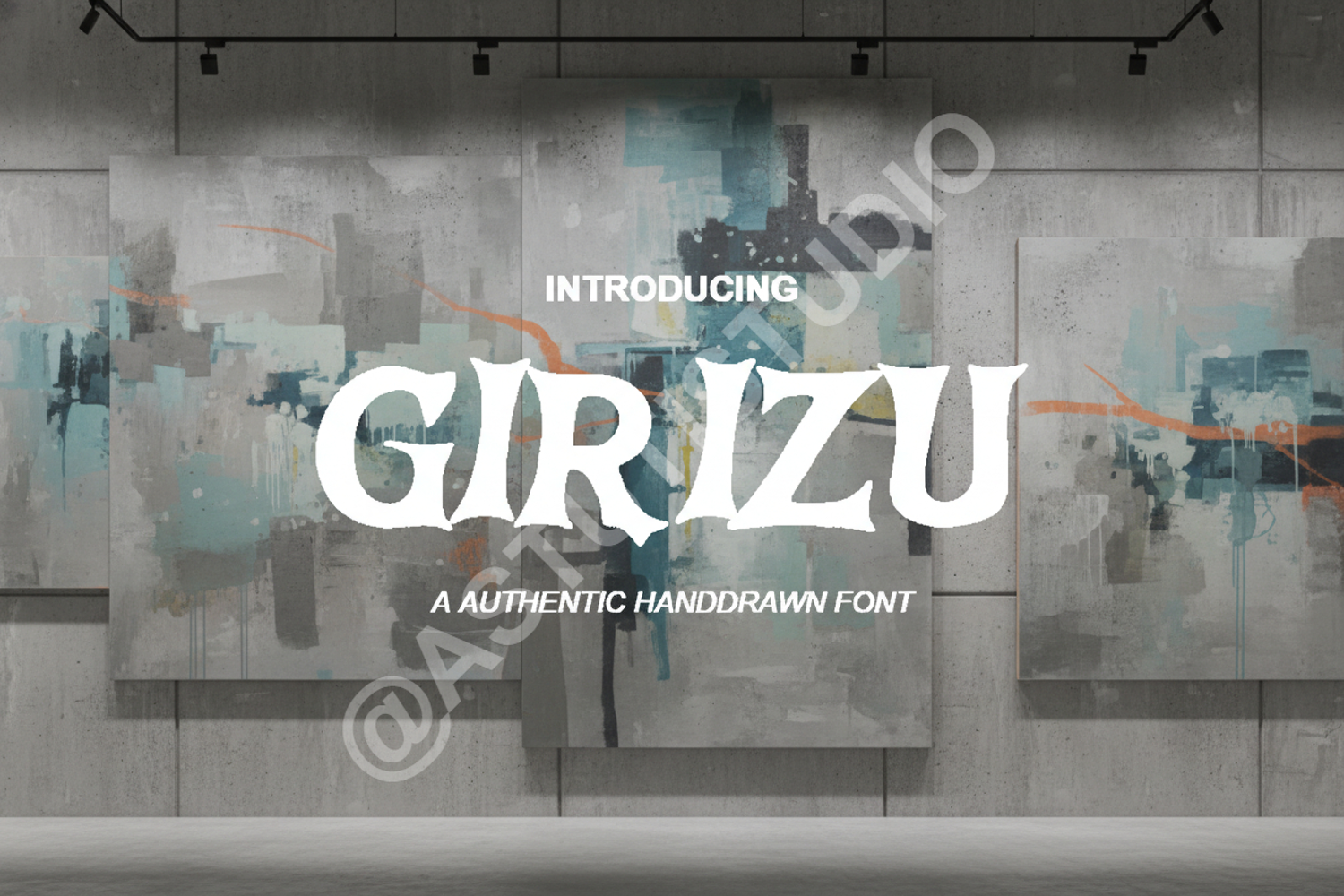
Girizu - Modern & Minimalist Geometric Sans Serif
Girizu
Girizu is a premium typeface meticulously crafted for designers who demand clarity and sophistication. Featuring clean geometric lines and perfectly balanced proportions, this font offers a contemporary aesthetic that stands out in both digital and print mediums. Whether you are building a high-end brand identity or a sleek user interface, Girizu provides the professional edge your projects deserve.
- Full set of uppercase and lowercase letters
- Numbers, punctuation, and comprehensive multilingual support
- Branding and Corporate Identity: Create a lasting impression with a clean, authoritative look.
- Web Design: Ensure readability across all devices with high-quality web-ready formats.
- Editorial Layouts: Perfect for magazine headers, body text, and sophisticated spreads.
- Minimalist Packaging: Elevate product presentation with a modern, high-end feel.
- Advertising: Capture attention in posters, social media ads, and marketing campaigns.
- Professional Signage: Ideal for clear, legible architectural and office environmental graphics.